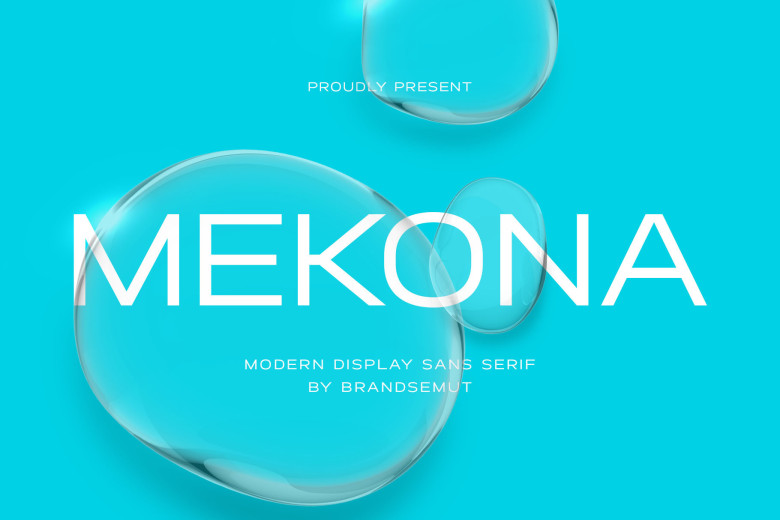
Mekona Font
Mekona is an elegant sans-serif typeface ideal for magazines, product packaging and invitations. Its clean lines and smooth curves add an air of elegance and classiness to any project.
Mekona Sans Serif Font